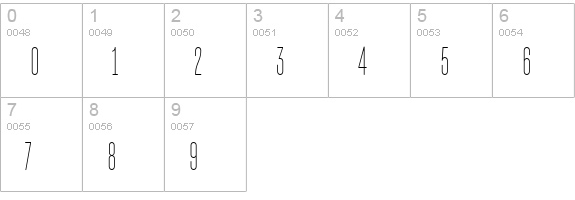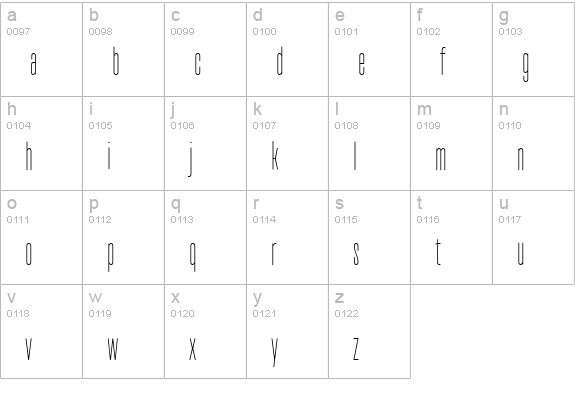
TT Bluescreens Round Light Font Details
TT Bluescreens Round Light is a refined, elegant variant in the TT typeface family \xE2\x80\x94 well suited to elegant body text, refined sub-headings, and luxury branding.
TT Bluescreens Round Light is a modern and stylish font that is perfect for adding a touch of sophistication to your design projects. With its clean lines and rounded edges, this font exudes a sense of elegance and versatility. Whether you are designing a website, creating a logo, or working on a branding project, TT Bluescreens Round Light is sure to make your text stand out. The best part is that TT Bluescreens Round Light is available for free download at FontsMarket.com. This means that you can easily access this high-quality font without breaking the bank. So why wait? Add TT Bluescreens Round Light to your font collection today and elevate your designs to the next level.